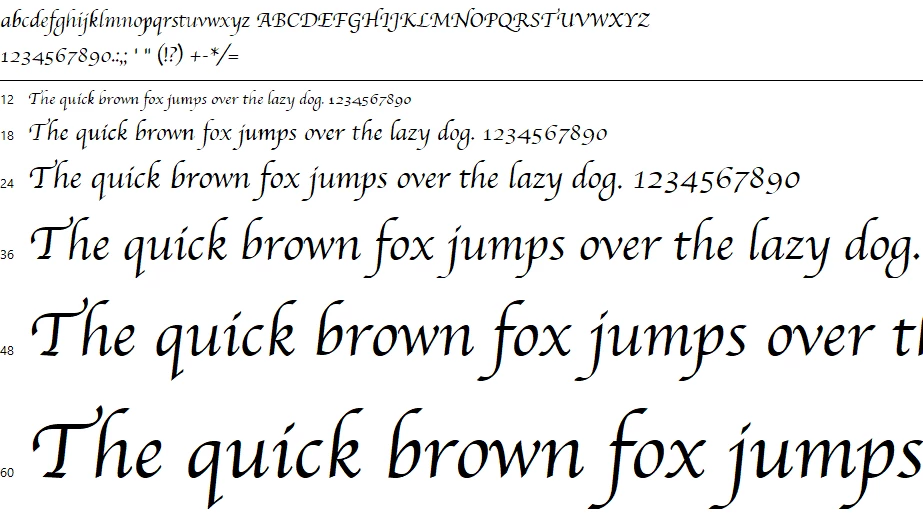
About The Font
The Apple Chancery font is a script-type calligraphy font made by Apple. It comes along with Apple’s Mac operating systems, like Mac OS X Panther (10.3). The design of the font features a bunch of interesting letters that are unconnected to one another.
This font style is based on old English handwriting called Chancery Script. This typeface was created from the inspiration of ancient English calligraphy and lettering that were found in old manuscripts.
The font was designed by Kris Holmes and developed and released by Bigelow & Holmes, Inc. in 1993. The last time it was updated was on January 31, 2020. This font belongs to the Apple font family, and the Apple company owns the copyright to this font. The font has a single style, with 169 characters, 1058 glyphs, 2048 per EM.
In addition, it has 100 different weights, including regular, bold, and italic, in Version 1.0.
This font is popular in general, but the bold and italic functions have a different fan base. In the font, the letters have a very noticeable look because of the swish they have. It gives superior elegance and class to the letters, especially capital letters.
Canciller, Mistral, and Lorenzo Swash fonts are similar to Apple Chancery Font.
| Name | Apple Chancery. |
| Style | Script. |
| Designer | Apple. |
What type of font is Apple Chancery Font?
Ans: Apple Chancery is a script typeface designed by Apple.
Is there any font similar to Apple Chancery Font in Google Fonts?
Ans: Kaushan Script is the most similar Google font to Apple Chancery.